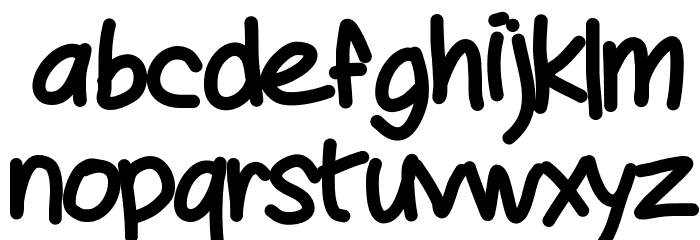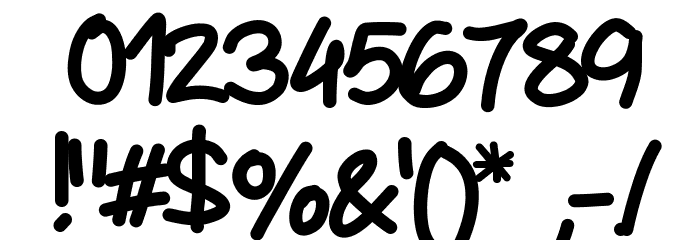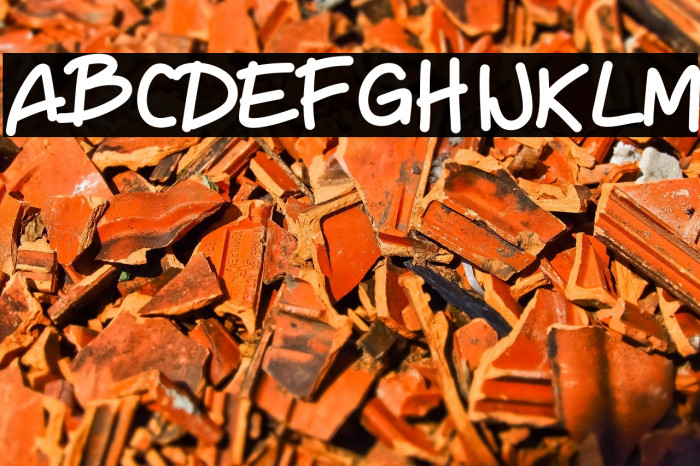
Mywriting Font
This font features a playful and casual handwritten style, characterized by its rounded and slightly irregular letterforms. The uppercase and lowercase letters maintain a consistent flow, giving it a friendly and approachable appearance. The numerals and special characters are crafted with the same informal touch, ensuring uniformity across all glyphs. Its bold strokes and smooth curves make it highly legible, even at smaller sizes. The font's organic feel is perfect for projects that require a personal and human touch, such as greeting cards, invitations, or children's books. Its versatility allows it to be used effectively in both digital and print media.
A playful, handwritten font with rounded, bold strokes and a casual style.
- Proposed Projects: Ideal for greeting cards, invitations, children's books, and casual branding.
- Overall Style: Casual, Playful
- Use Case: Headlines, Logos, Invitations